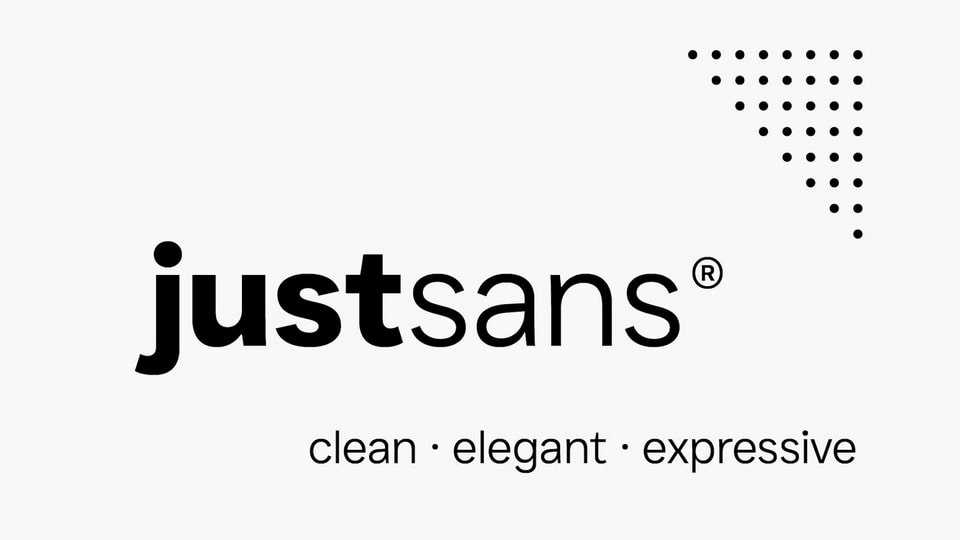
Download JUST Sans font, a highly versatile typeface with endearing, modernist warmth, geometric legibility, and a distinctive friendly bite. JUST Sans is both serious and friendly, neutral but warmly expressive, technical but not overt, and familiar but unique enough to stand on its own.